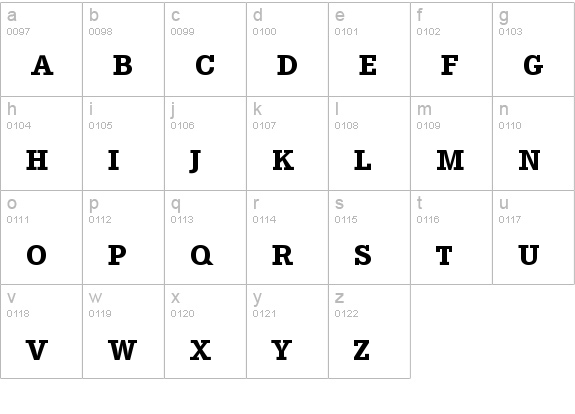
CorporateESC-Bold Font Details
CorporateESC-Bold is a strong, high-contrast variant in the CorporateESC typeface family \xE2\x80\x94 well suited to headlines, attention-grabbing titles, and strong calls-to-action.
CorporateESC-Bold is a sophisticated and modern font that exudes professionalism and authority. Its bold and sharp design makes it perfect for corporate and business-related projects, adding a touch of elegance and sophistication to any design. The clean lines and sleek curves of CorporateESC-Bold give it a timeless and classic appeal, making it a versatile choice for a wide range of design applications. The best part about CorporateESC-Bold is that it is available for free download at FontsMarket.com. This means you can easily access this stylish font and use it in your projects without any cost. Whether you are designing a sleek corporate logo, creating a professional presentation, or crafting a polished website, CorporateESC-Bold is the perfect font to elevate your design to the next level. With its bold and commanding presence, CorporateESC-Bold is sure to make a lasting impression on your audience. Download this impressive font for free today and add a touch of sophistication to your designs.